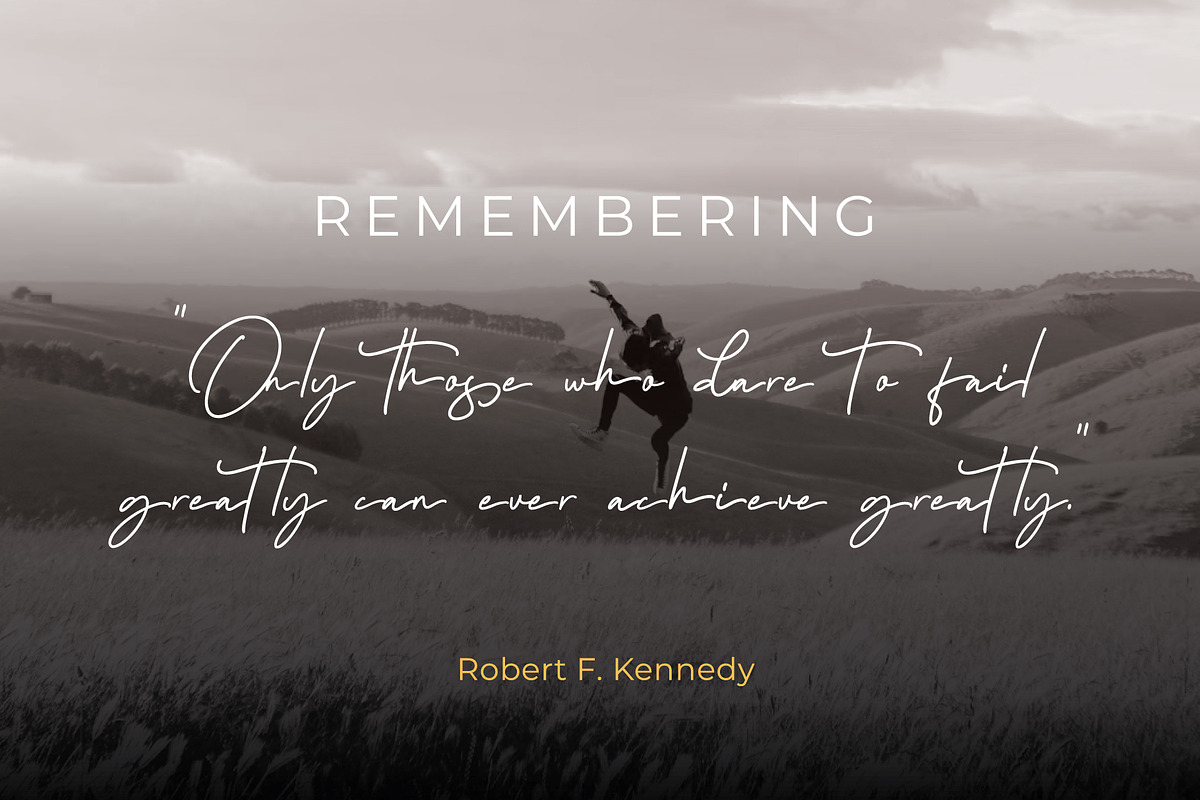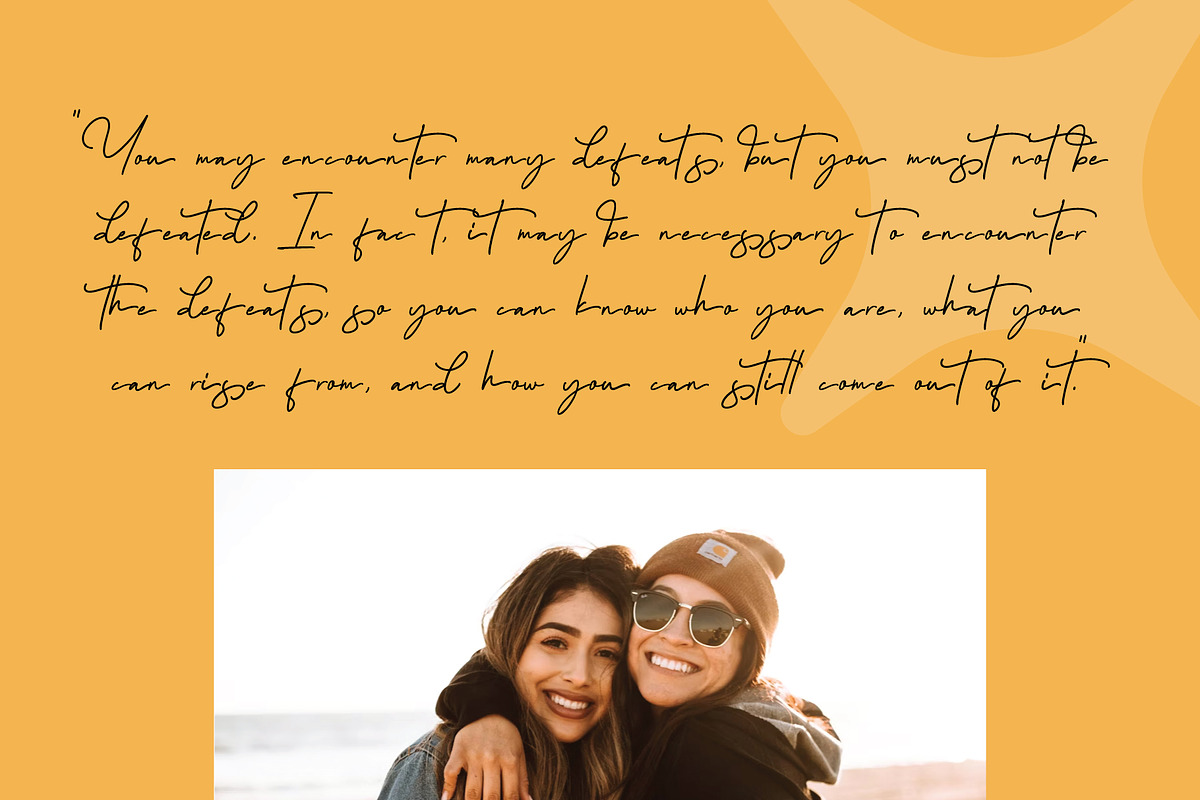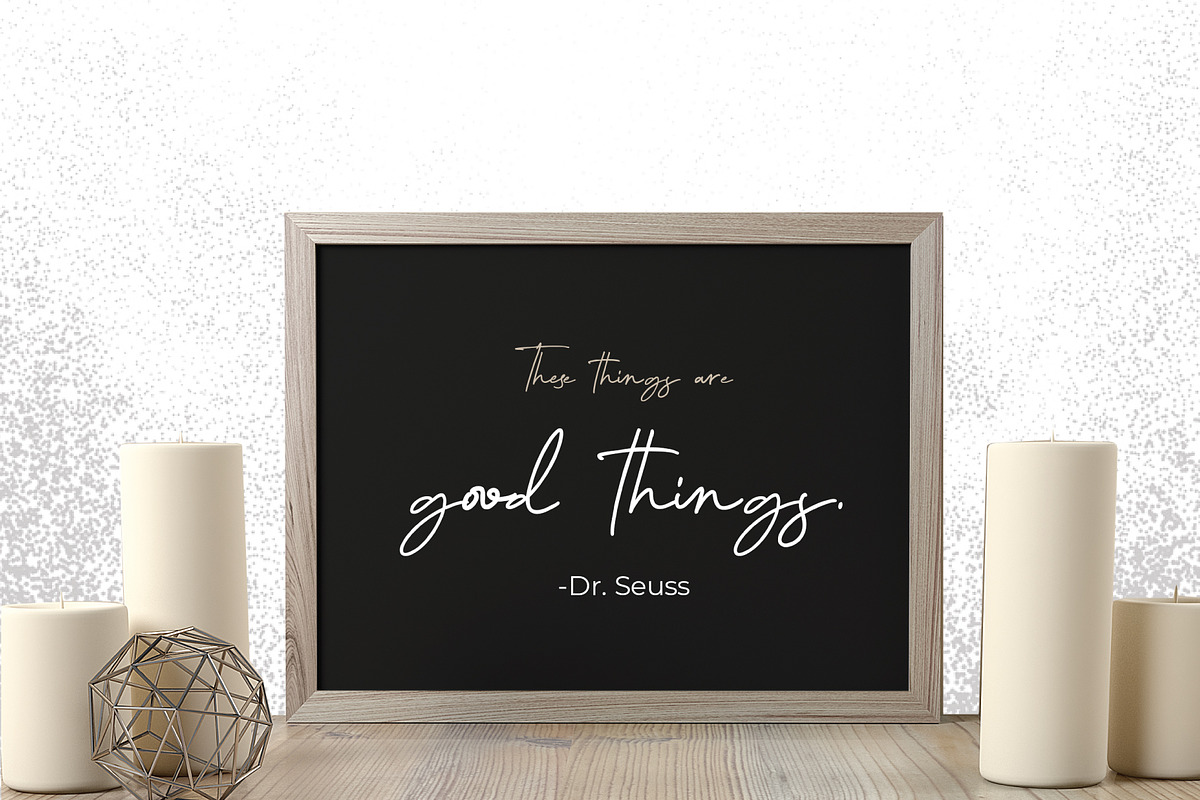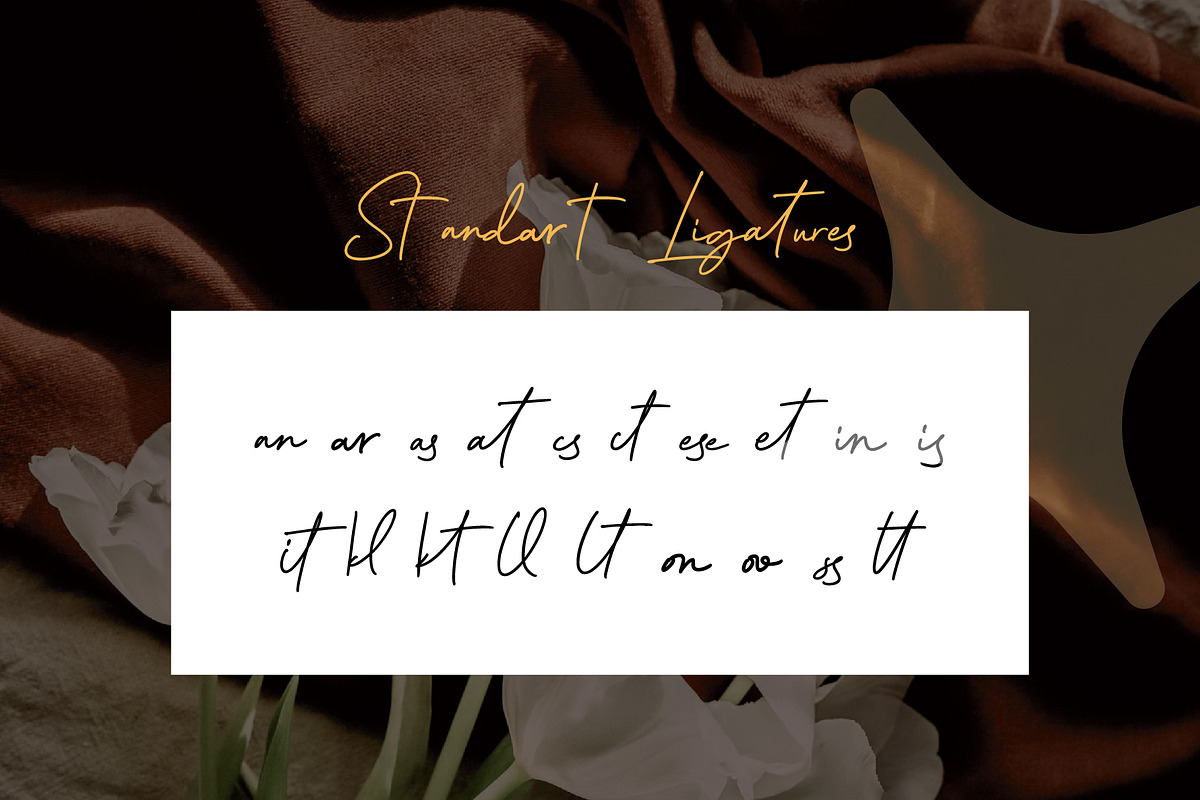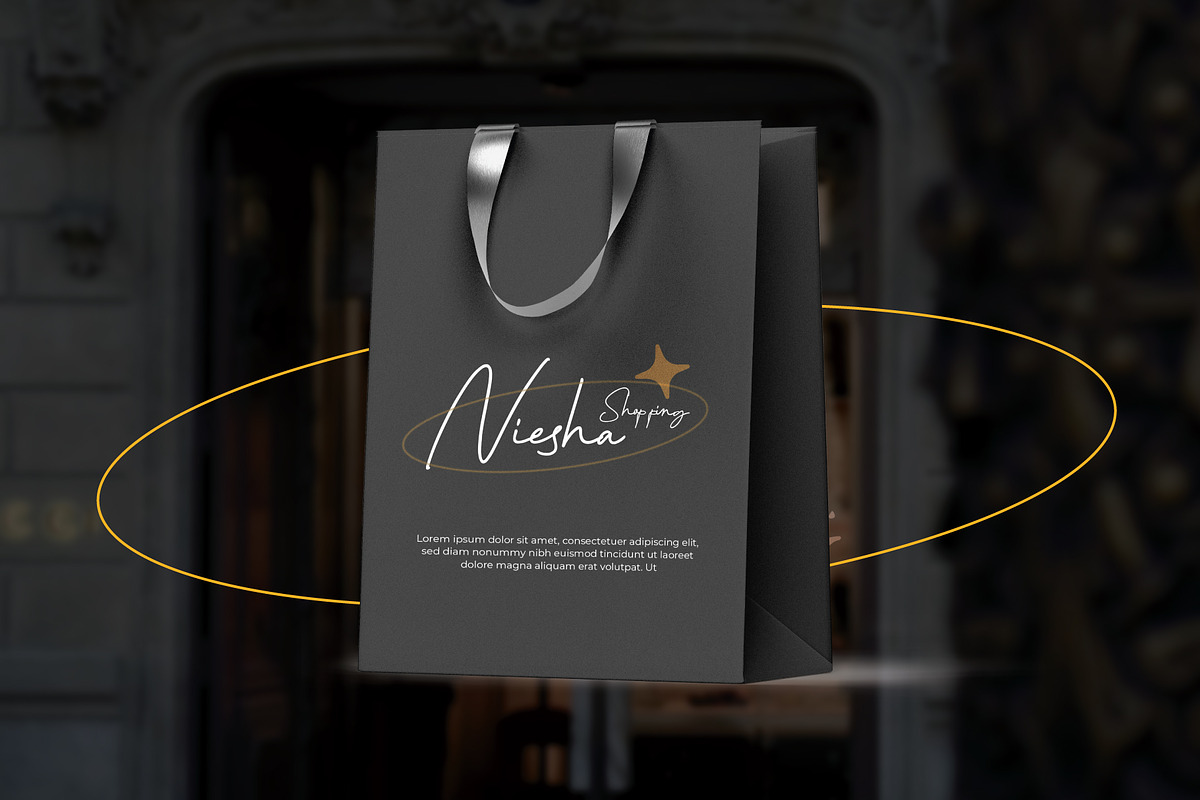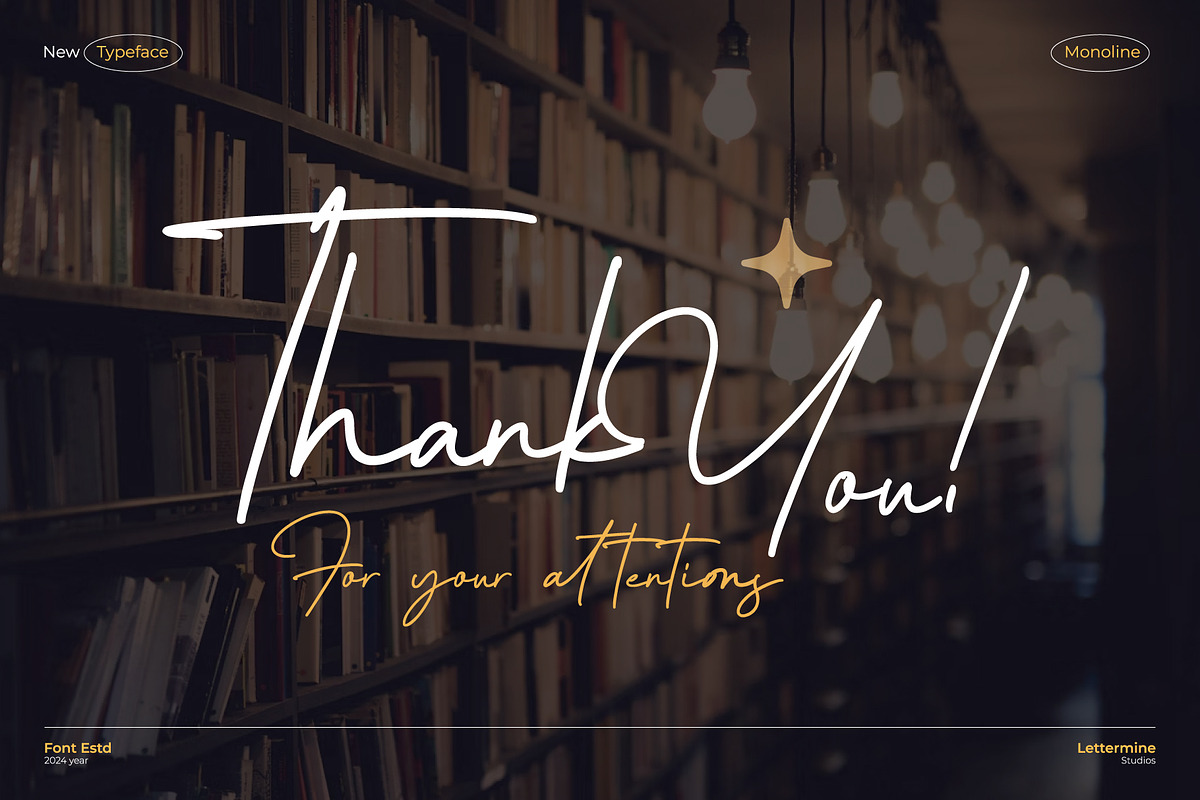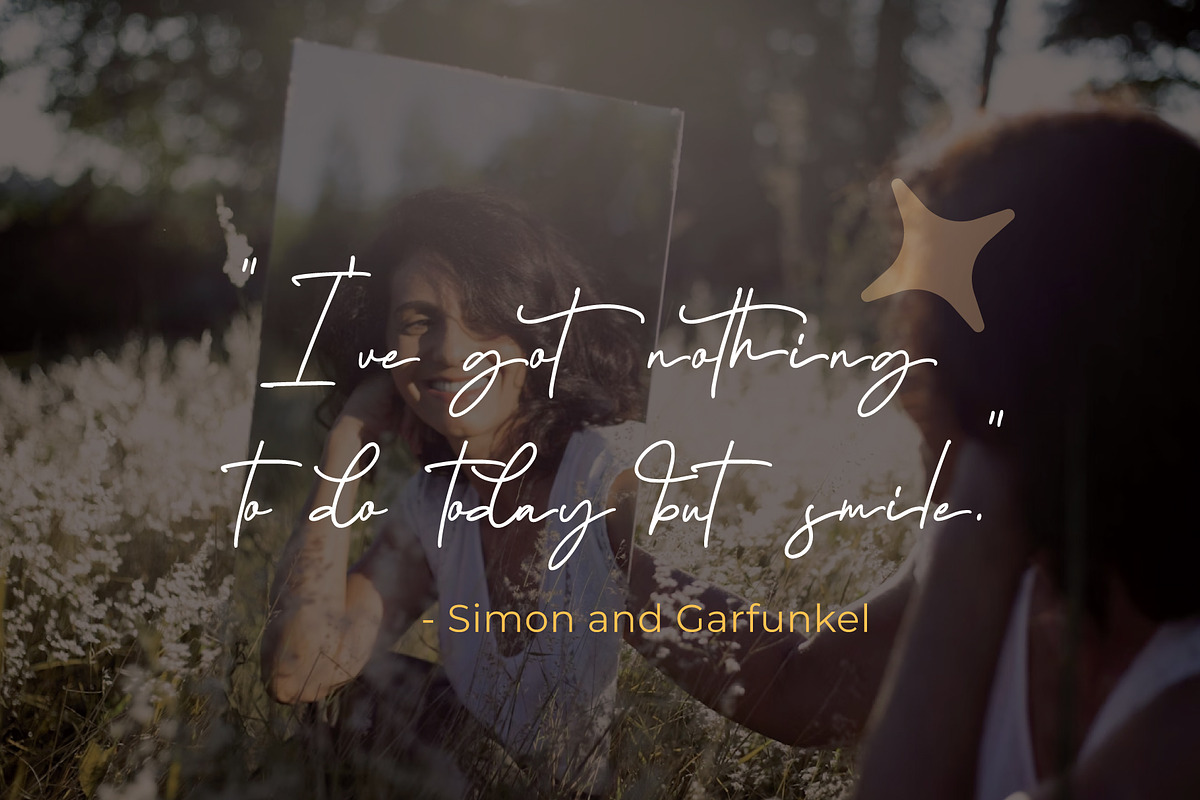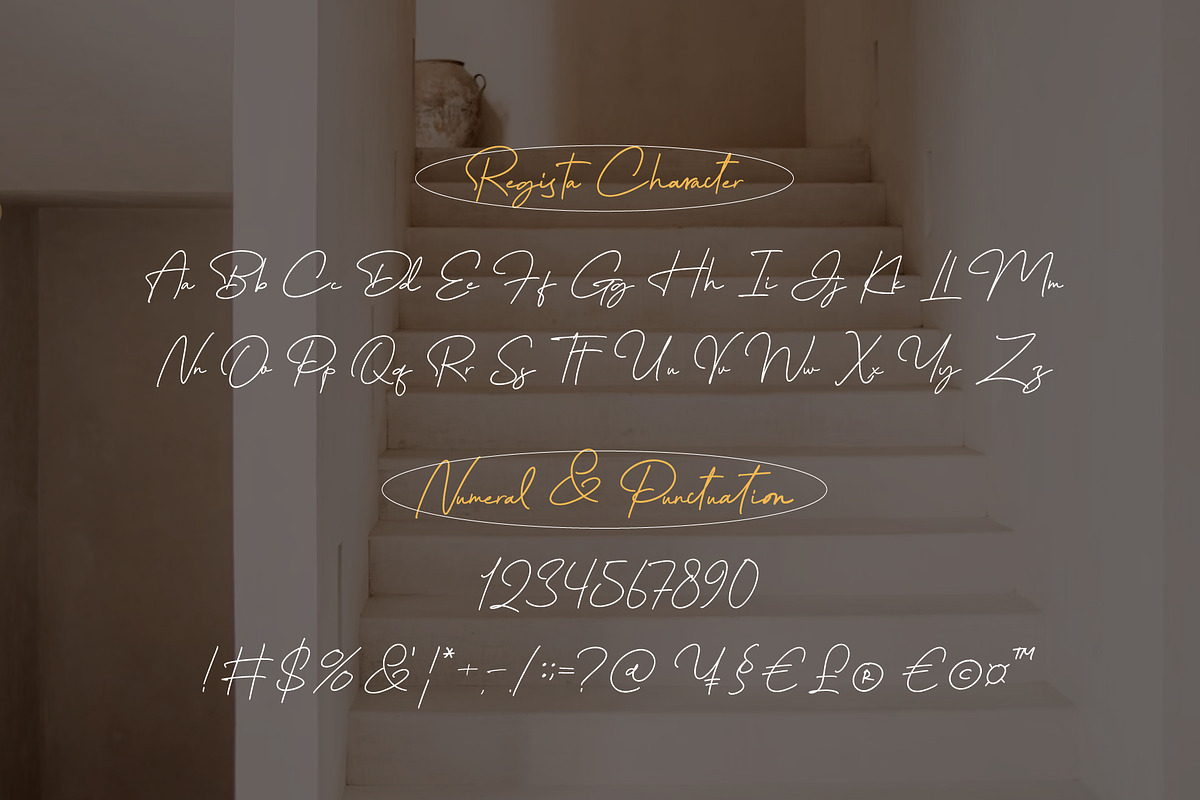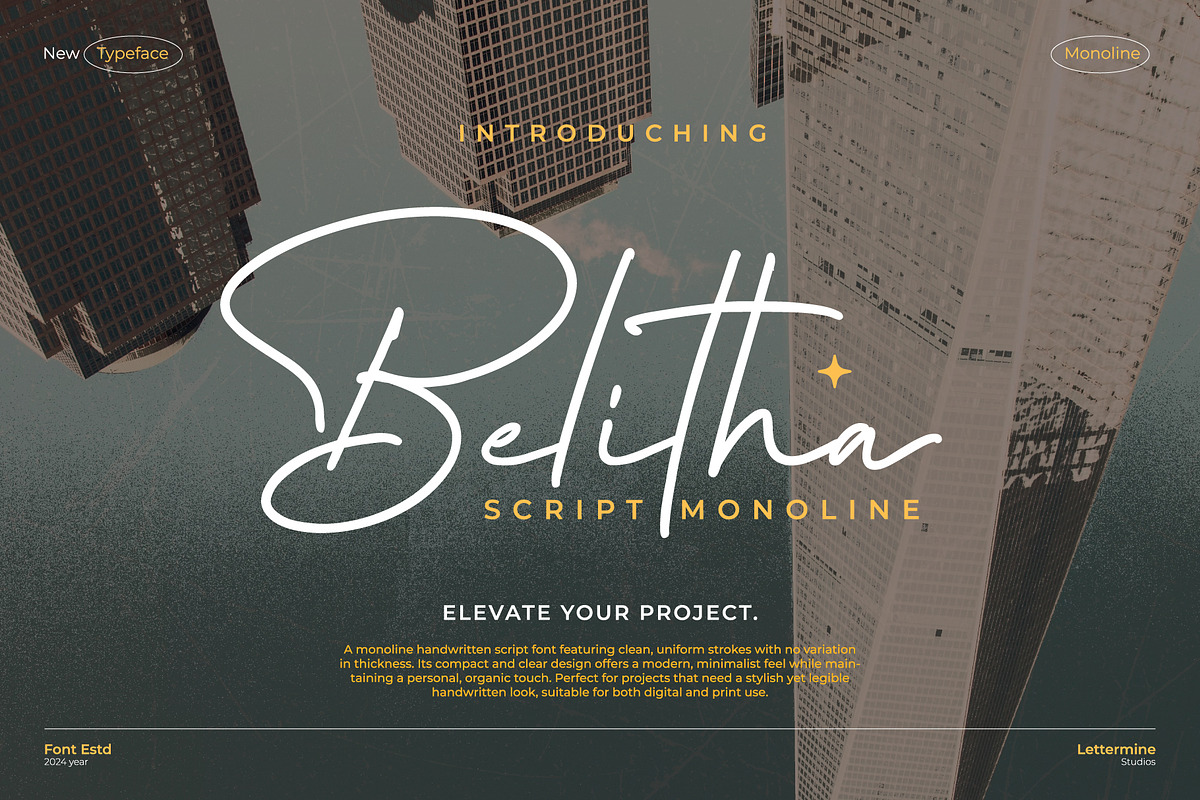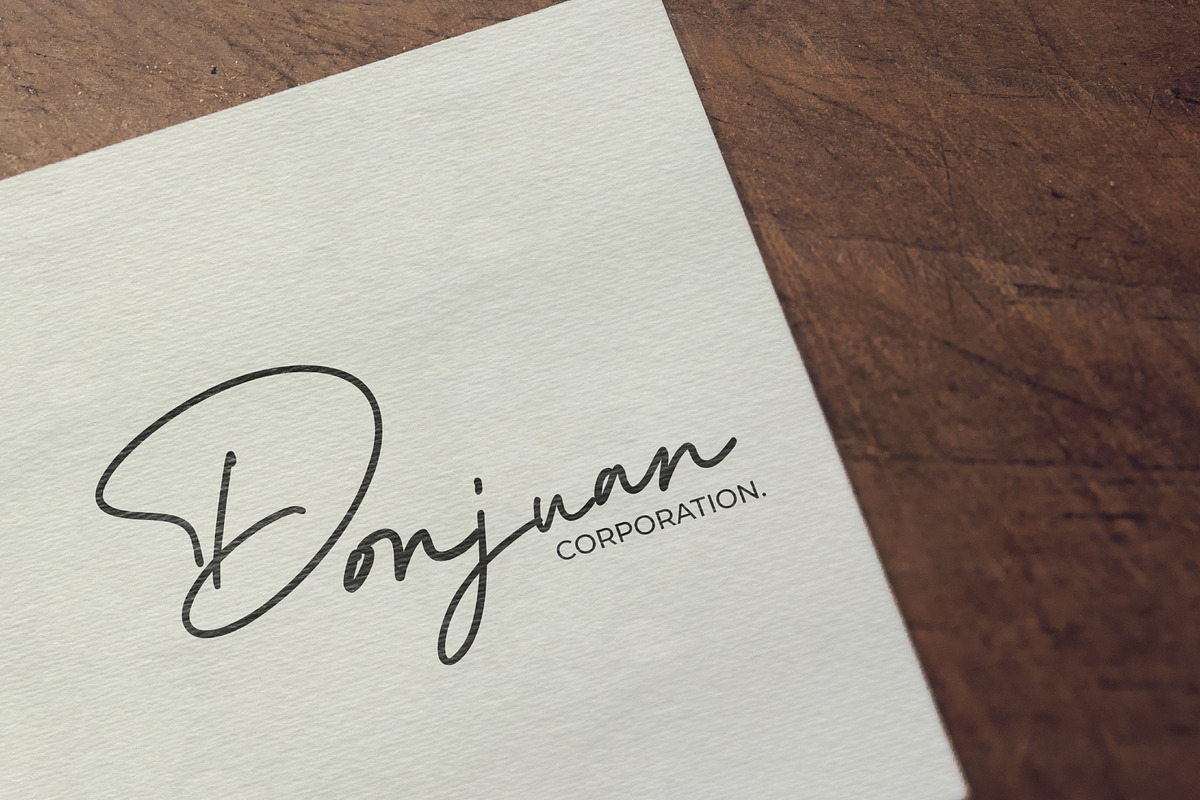
Belitha - Script Handwritten
Belitha – Script Handwritten
Belitha is a charming script handwritten font that exudes elegance and warmth with its flowing, natural strokes. Each character is thoughtfully designed to create a smooth and cohesive style, making it ideal for crafting sophisticated and personal designs. This font’s graceful lines and authentic handwritten touch bring a sense of intimacy and creativity to every project.
Ligature
Alternative
Let Belitha elevate your designs with its timeless beauty and heartfelt charm. Whether you’re working on branding, wedding invitations, or social media graphics, Belitha is the perfect font to add a touch of handwritten sophistication.